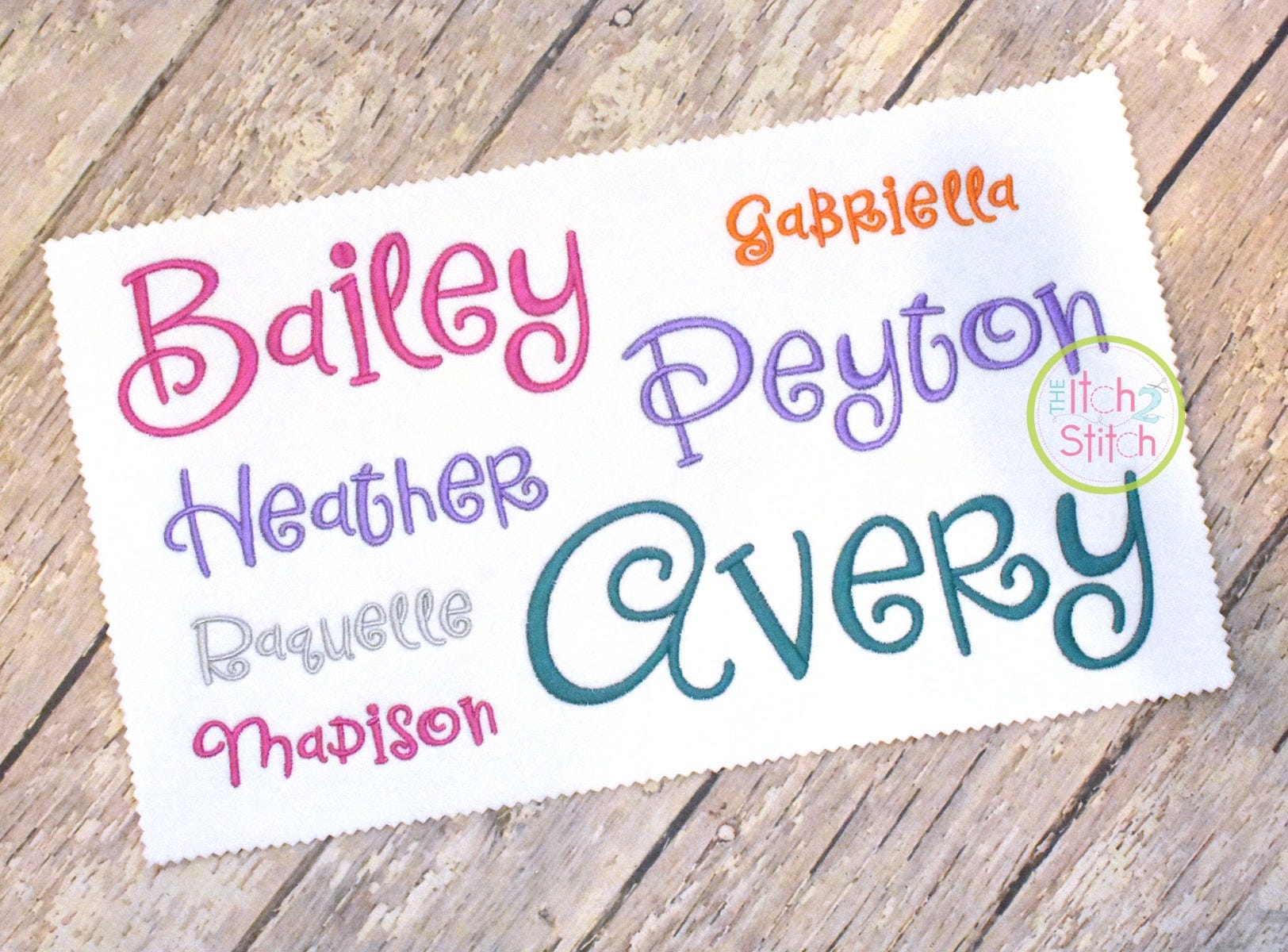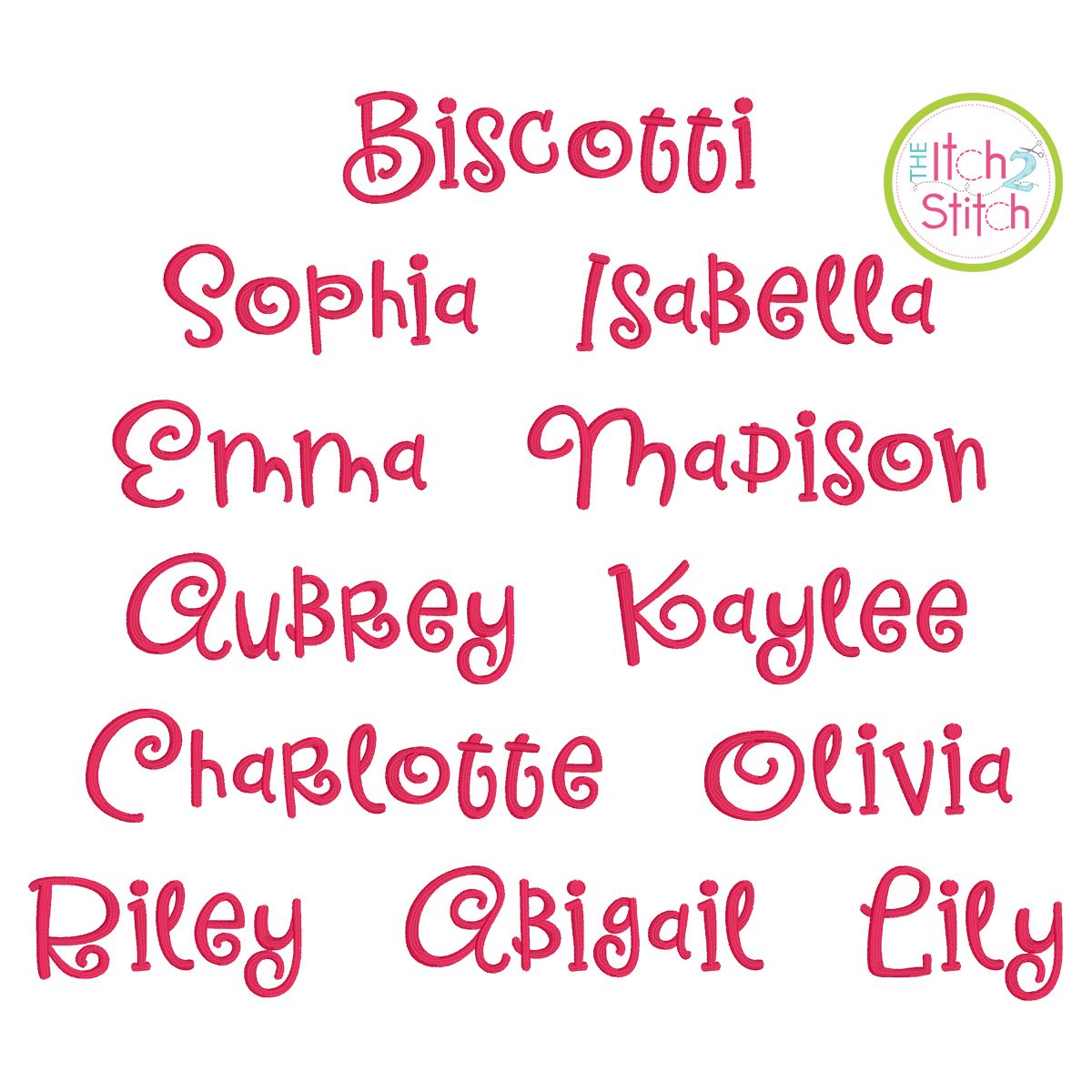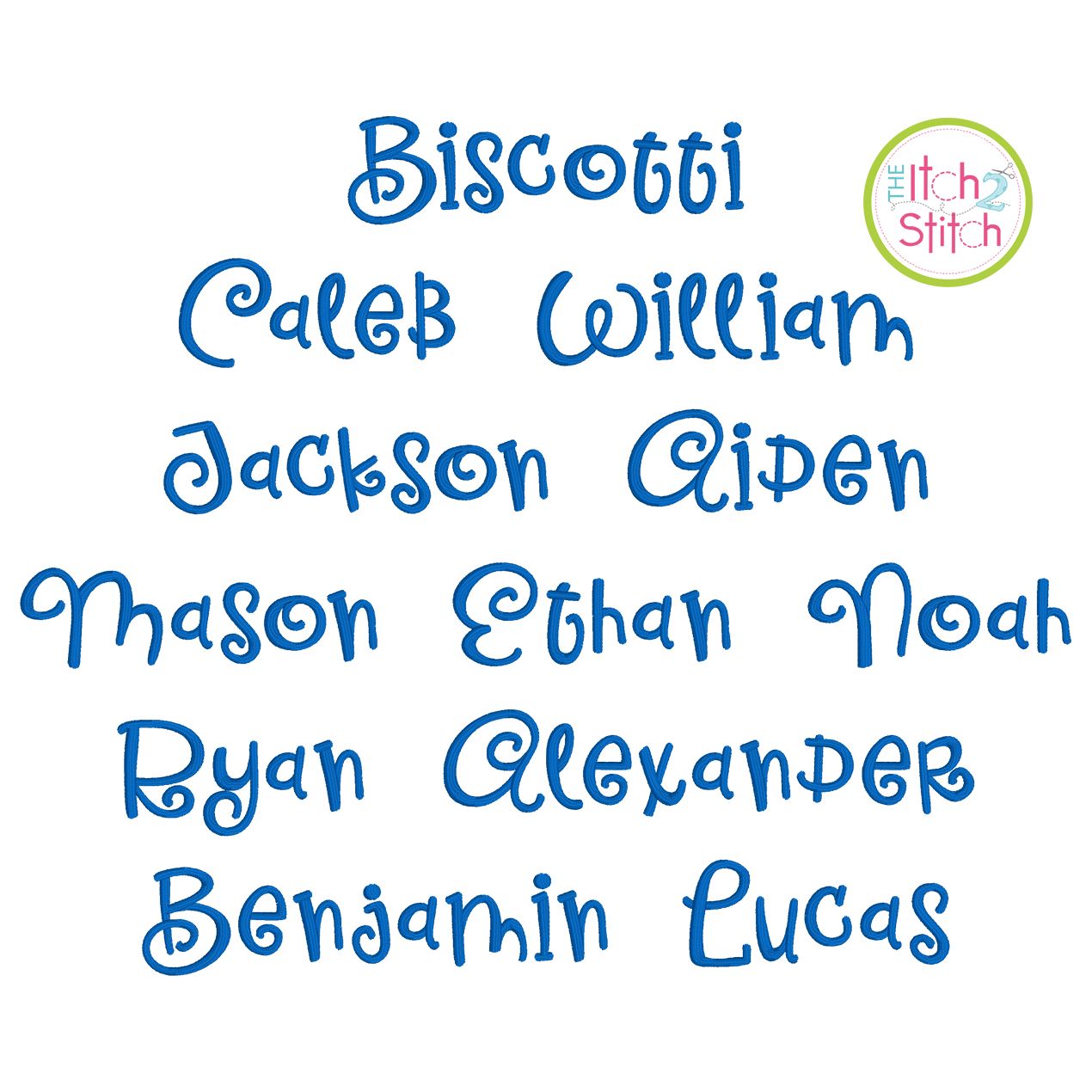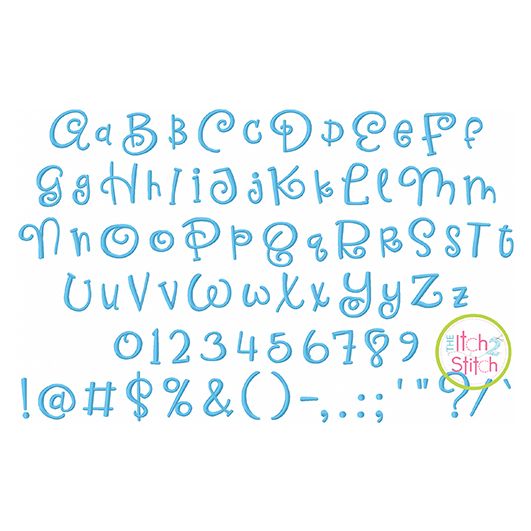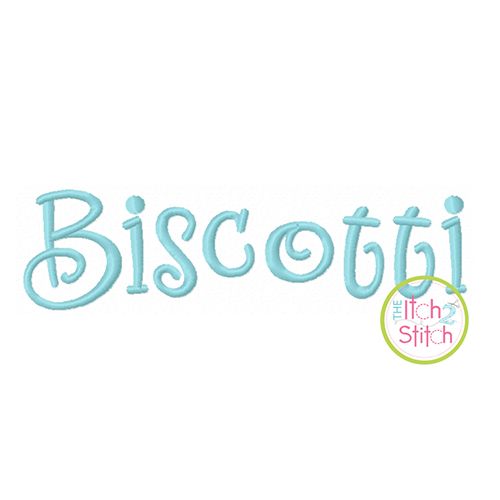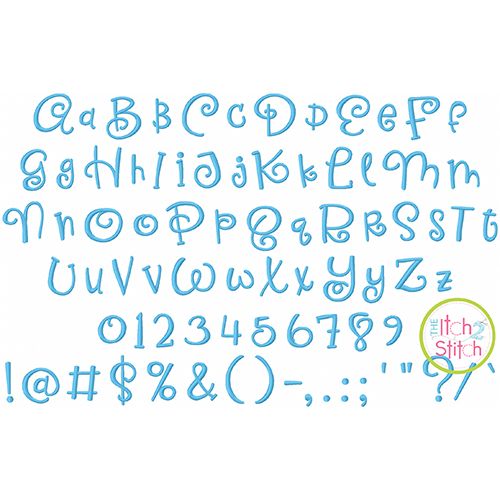
Biscotti Satin Stitch Embroidery Font
You will receive all Aa-Zz letters, numbers and punctuation (80 files) in five sizes. Font size is based on the capital P, and all other letters scaled to match original artwork, which features letters of various sizes and placement along the baseline. Please note some "lowercase" letters (b, d, and r in particular) look like capital letters, which is part of the quirky nature of this font.